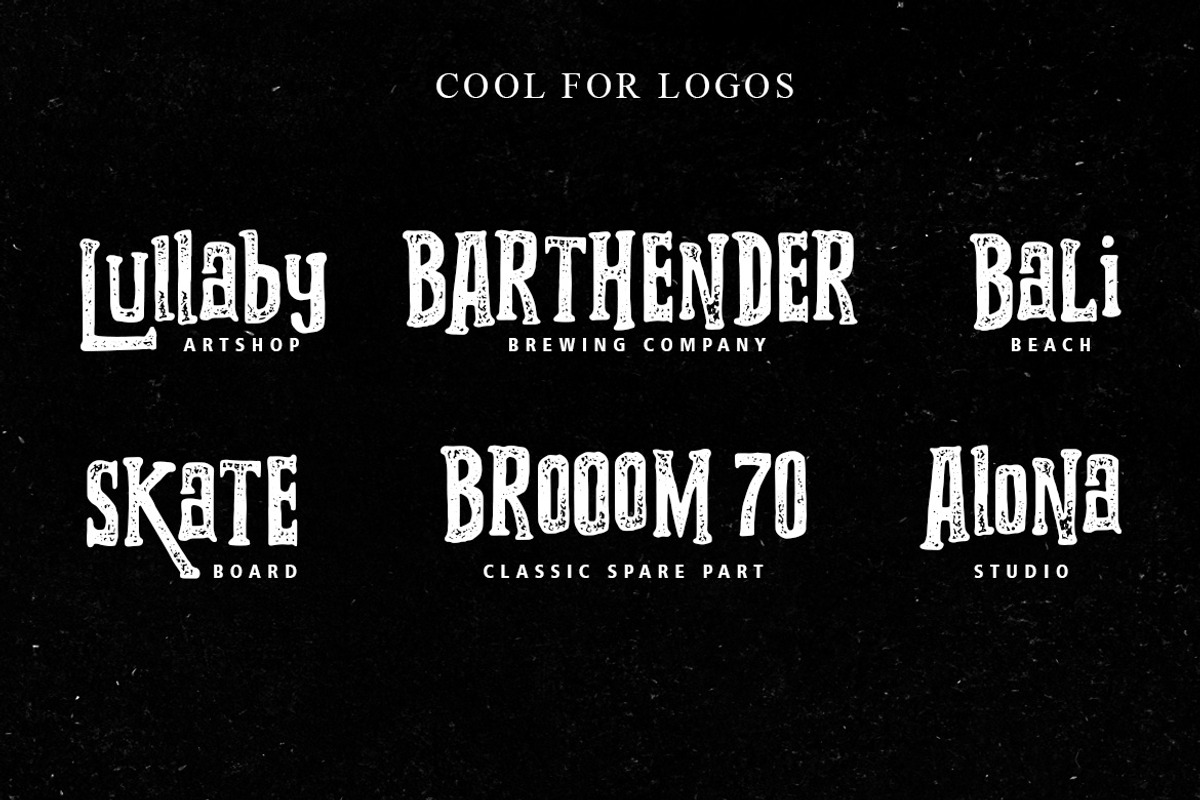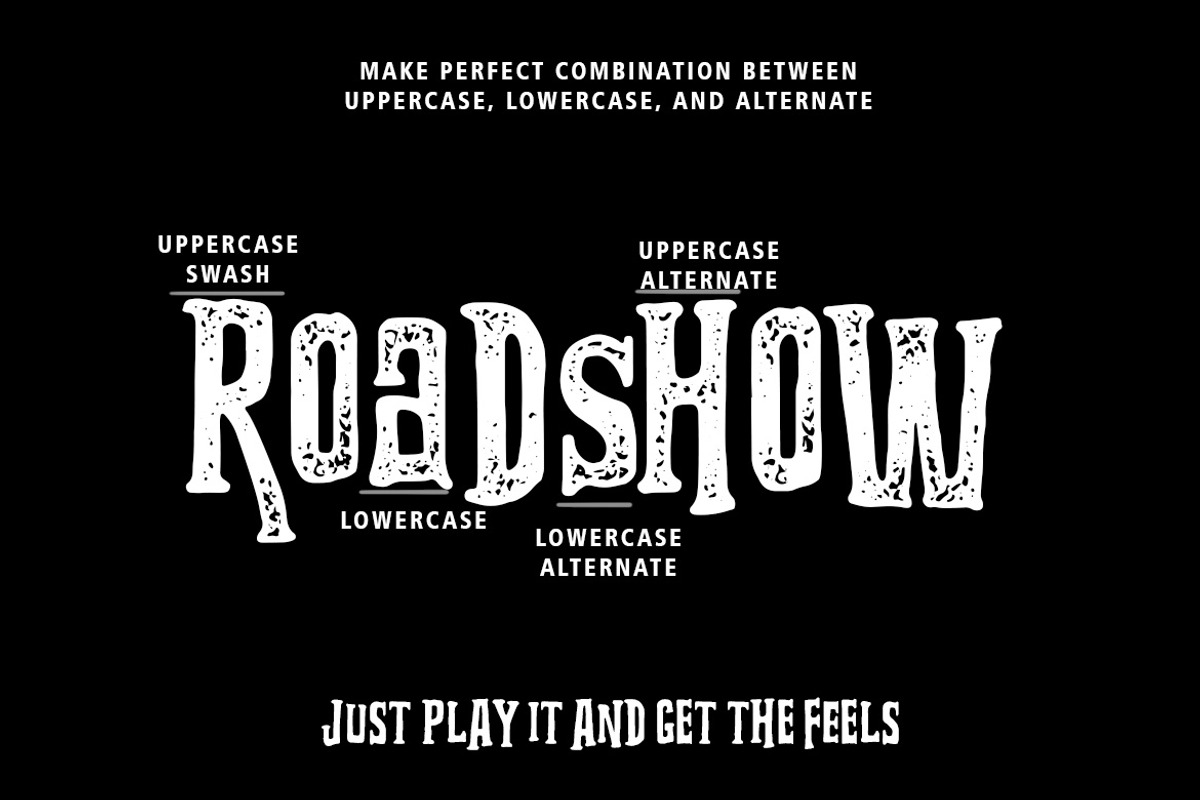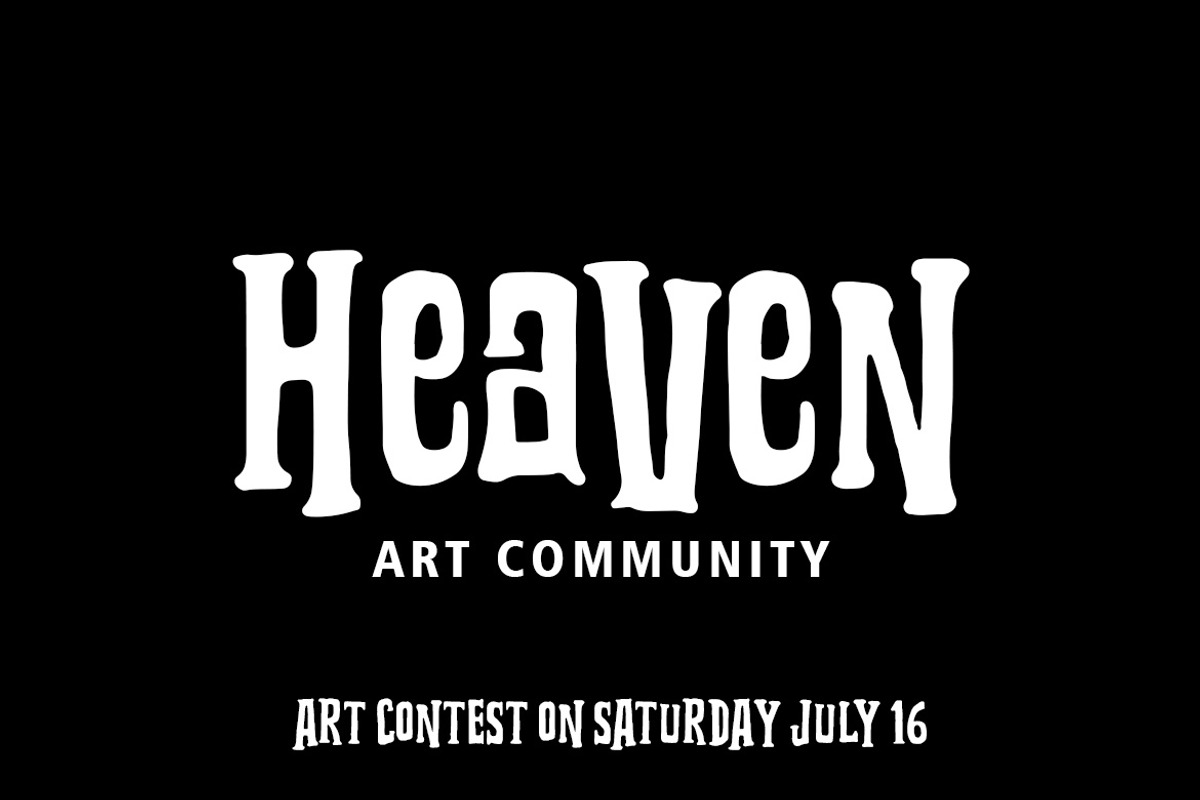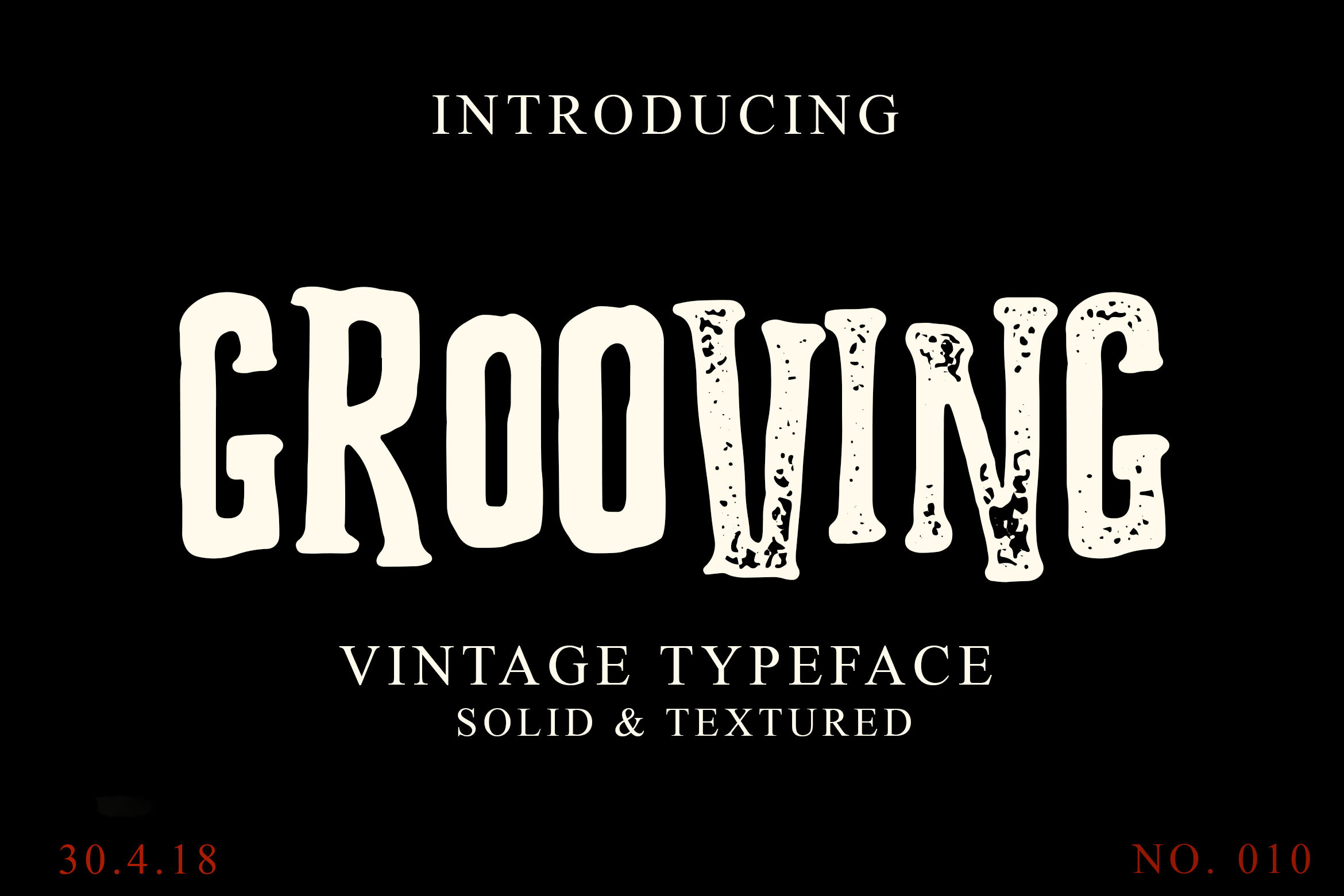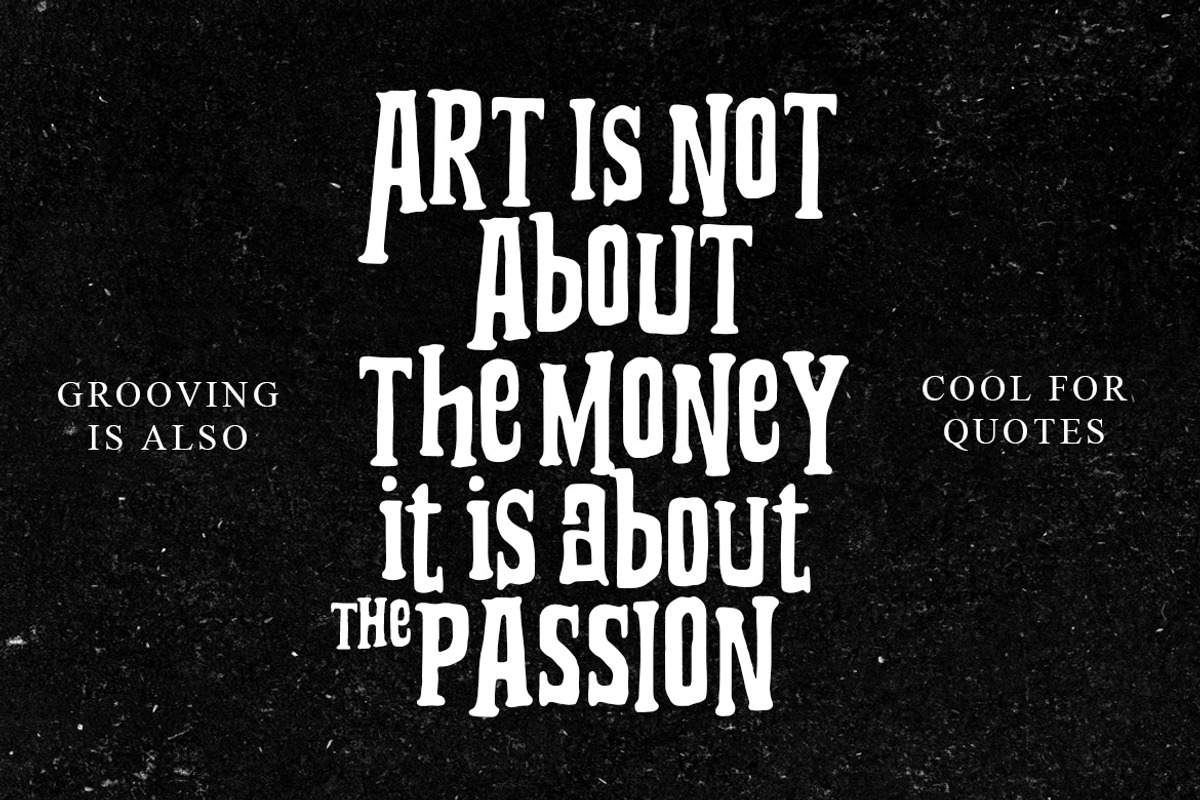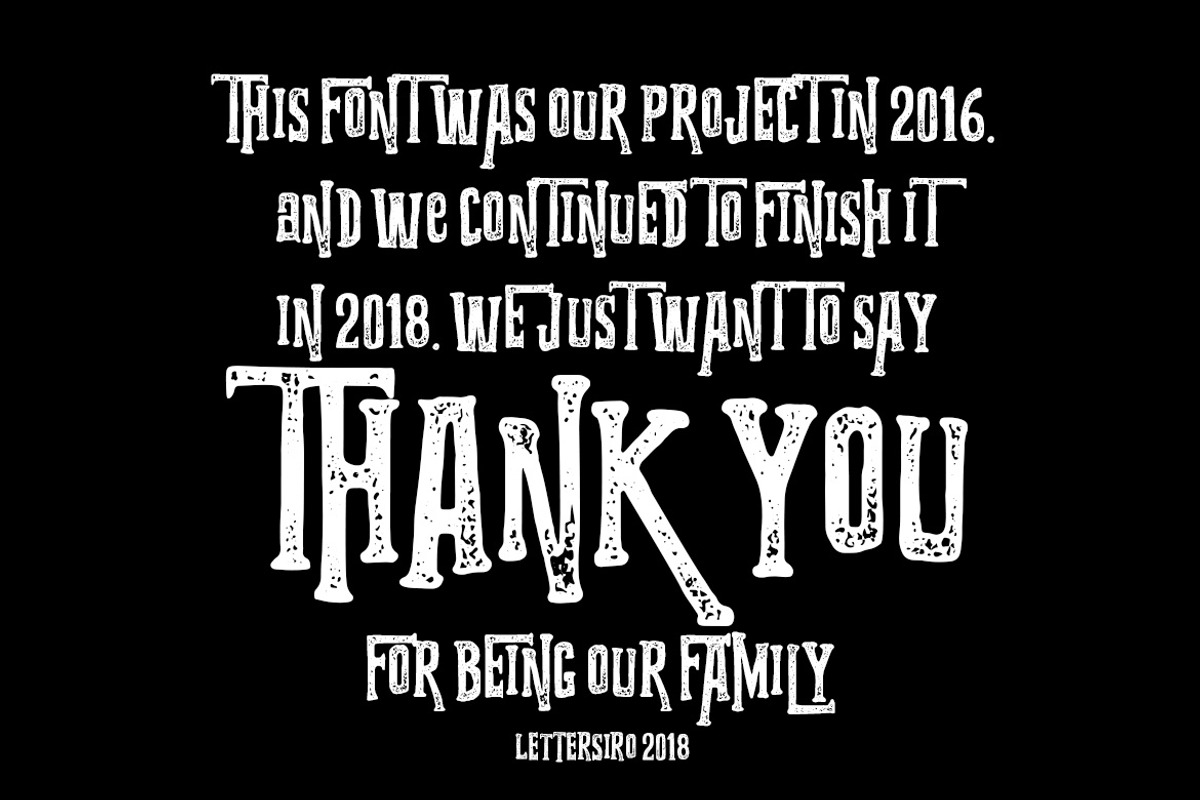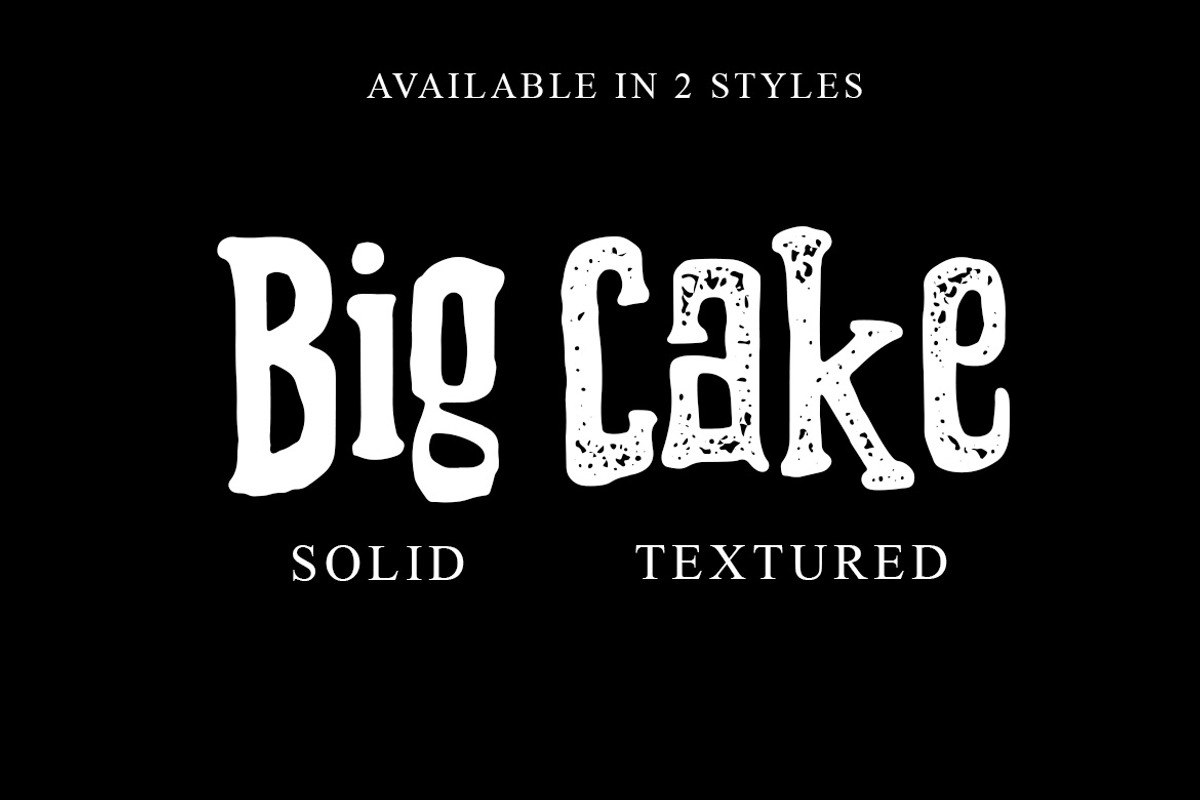
Grooving Vintage Font
Grooving is vintage typeface. Comes with 2 style, solid and textured. Grooving is perfect for vintage logo, poster, quote, clothing, sticker design, and any other vintage designs.
Available in TTF and OTF format. Grooving has alternate, swash, ligature, and multilingual language (Danish,Finnish,English, Spanish,Dutch,German,Icelandic,Italian, Norwegian,Portuguese,Indonesian, Swedish)